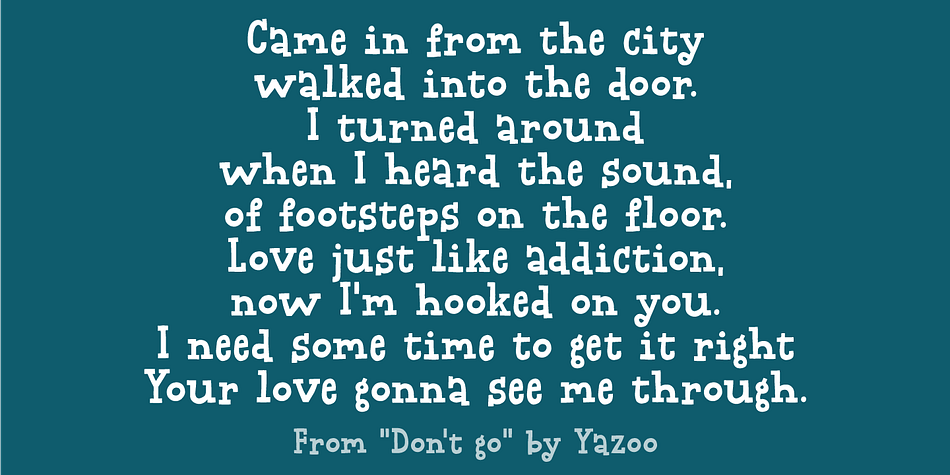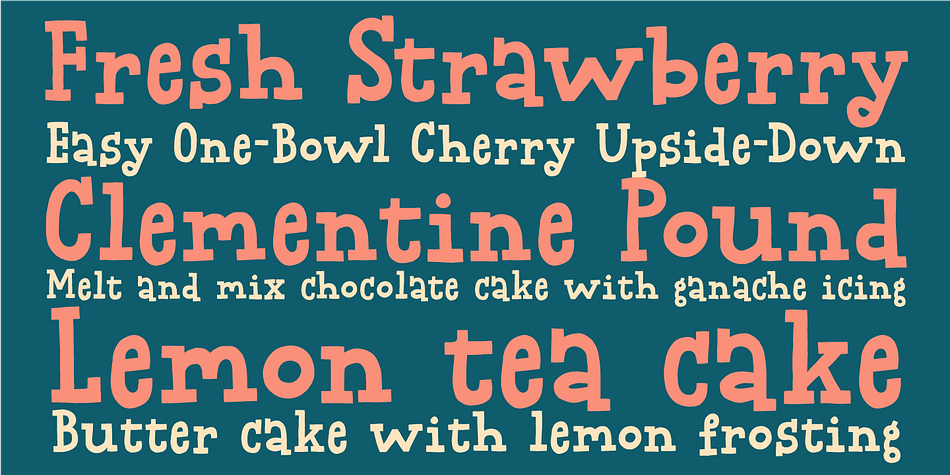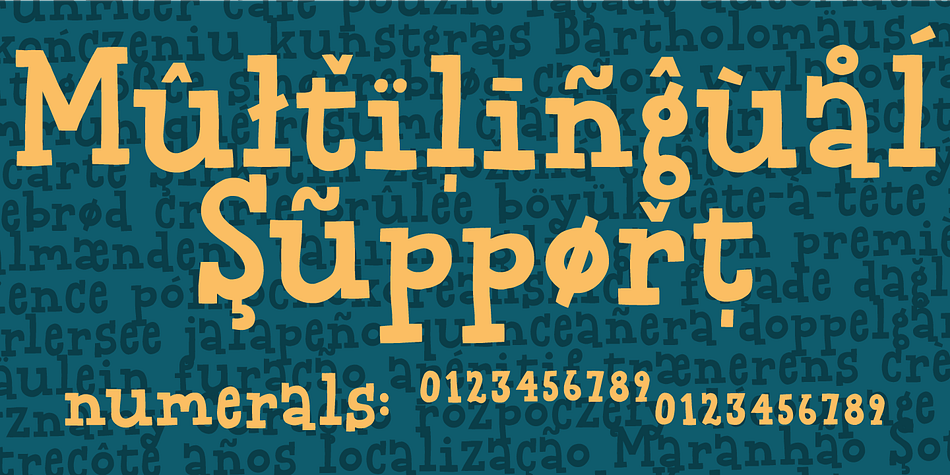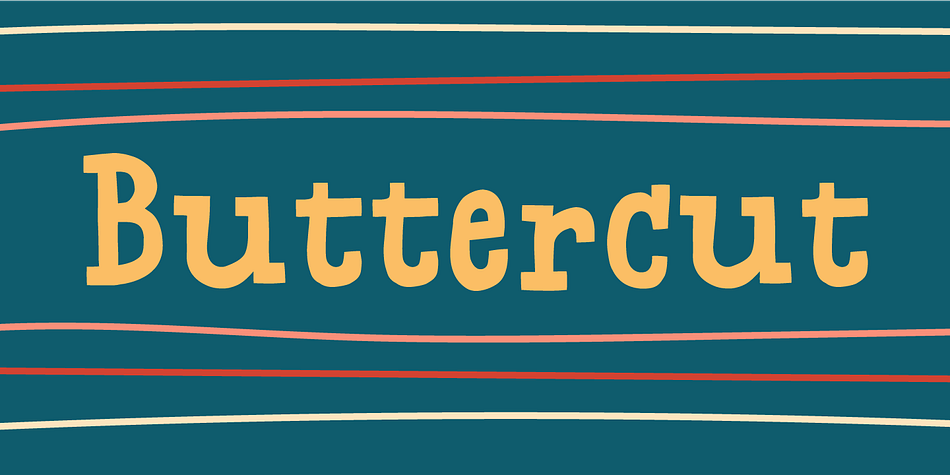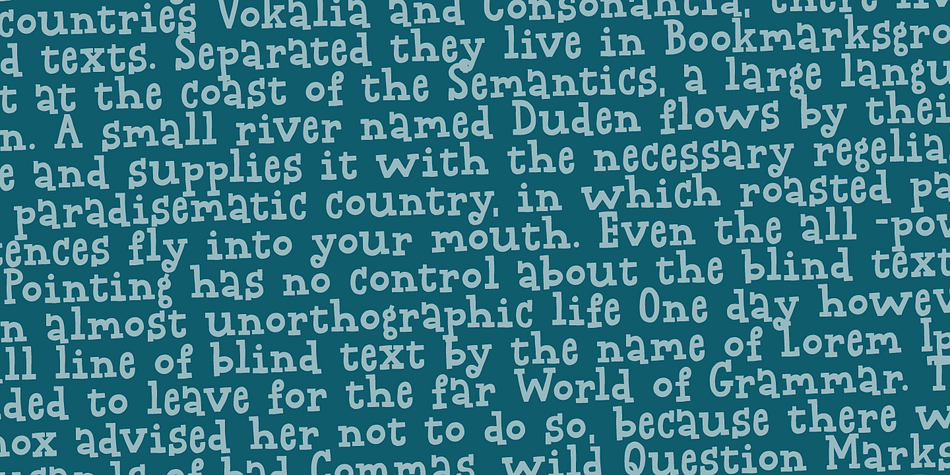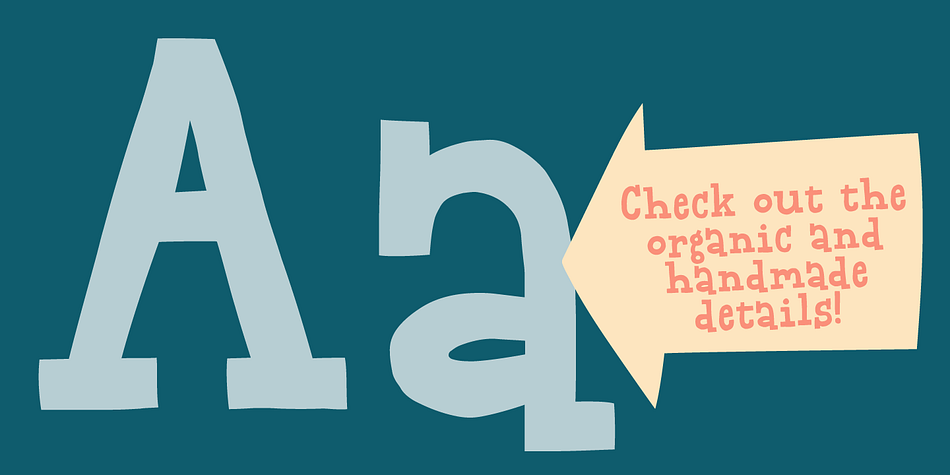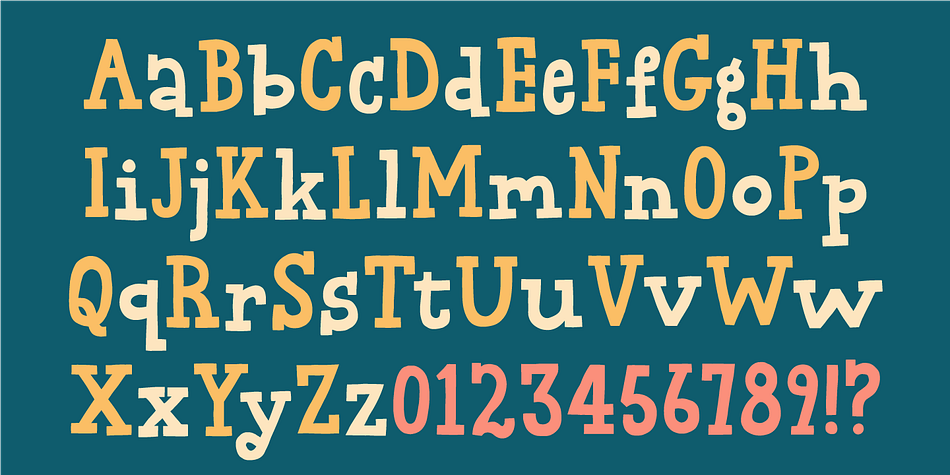
Buttercut
Designed by Jakob Fischer, Buttercut is a hand drawn and kids font family. This typeface has two styles and was published by Pizzadude.dk.
Buttercut was inspired by classic slab serif fonts, such as Roboto Slab and Rockwell.
However, Buttercut is way more bouncy and “off grid” - maybe the reason for that is that it was influenced by both grafitti and comics?!